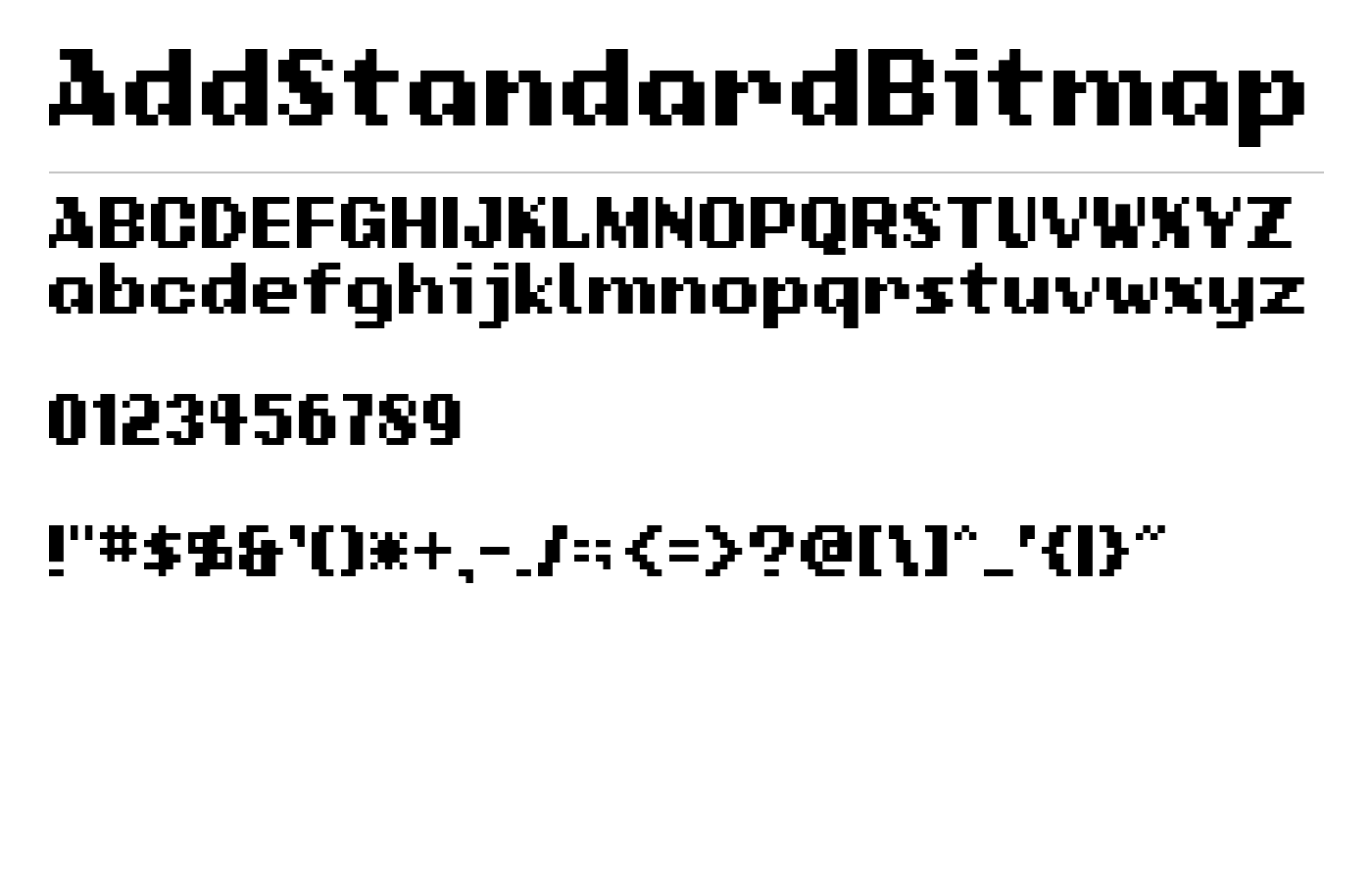
AddStandardBitmap is a bold, pixelated sans serif font with a blocky, retro style reminiscent of early digital displays and video games. Its fixed-width, square-shaped letterforms create a strong, technical feel, making it ideal for digital-themed designs, coding environments, or vintage tech branding. This font works best in headlines, logos, or any context where a distinctive, pixel-art aesthetic is desired.
AddStandardBitmap Font